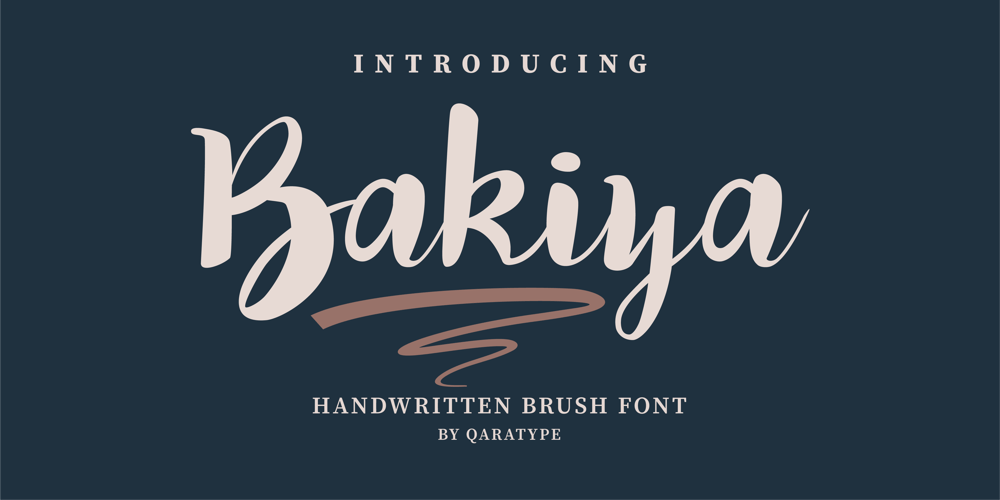
Bakiya Font Family was designed by Anass Qara and published by Qaratype. Bakiya contains 1 styles and family package options. Bakiya is an enchanting handwritten font. This versatile script font has a wide spectrum of applications ranging from greeting cards to headlines and is guaranteed to add a romantic feel to your next project.This font is PUA encoded which means you can access all of the beautiful glyphs and beginning & ending swashes. with ease!